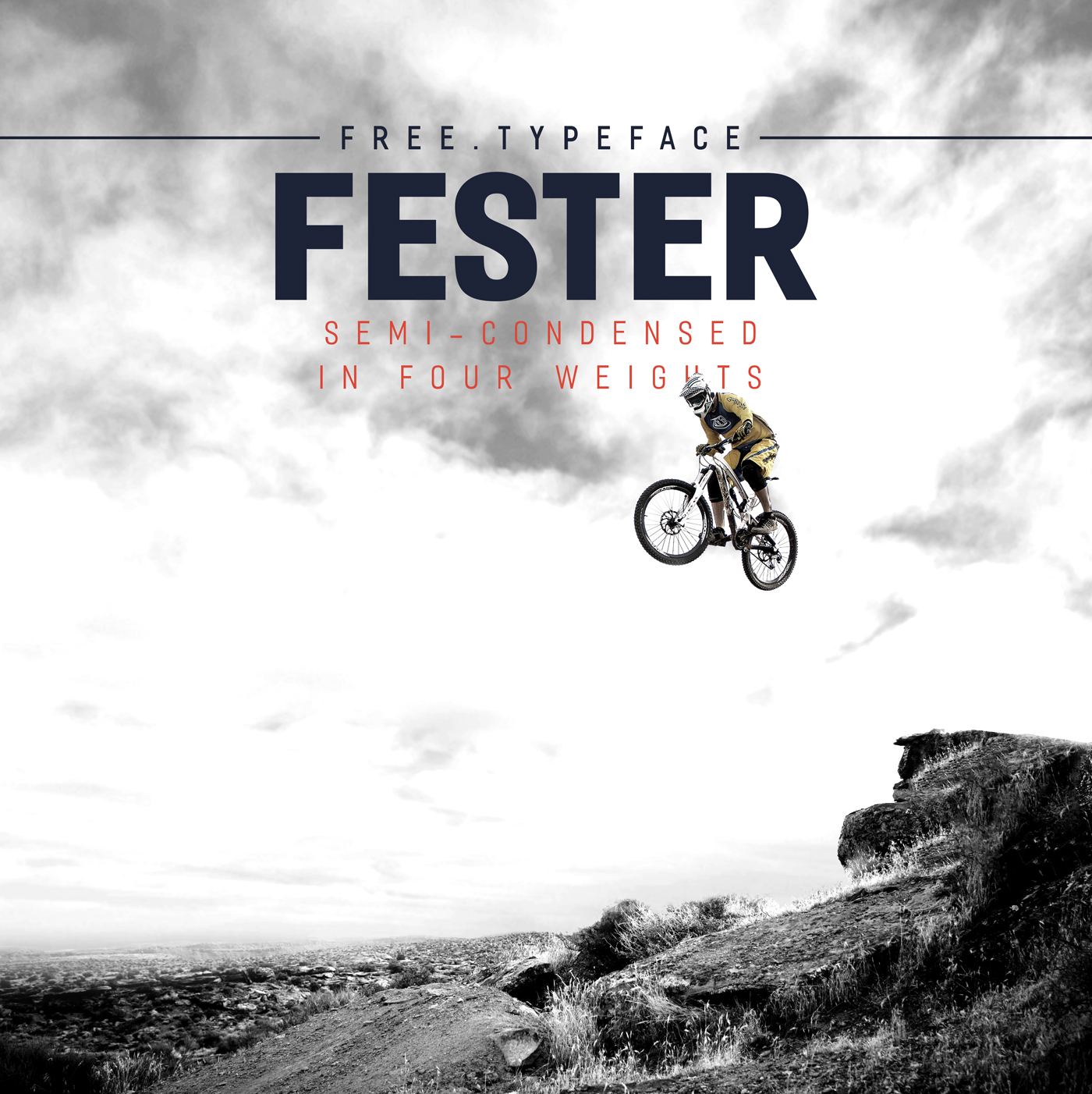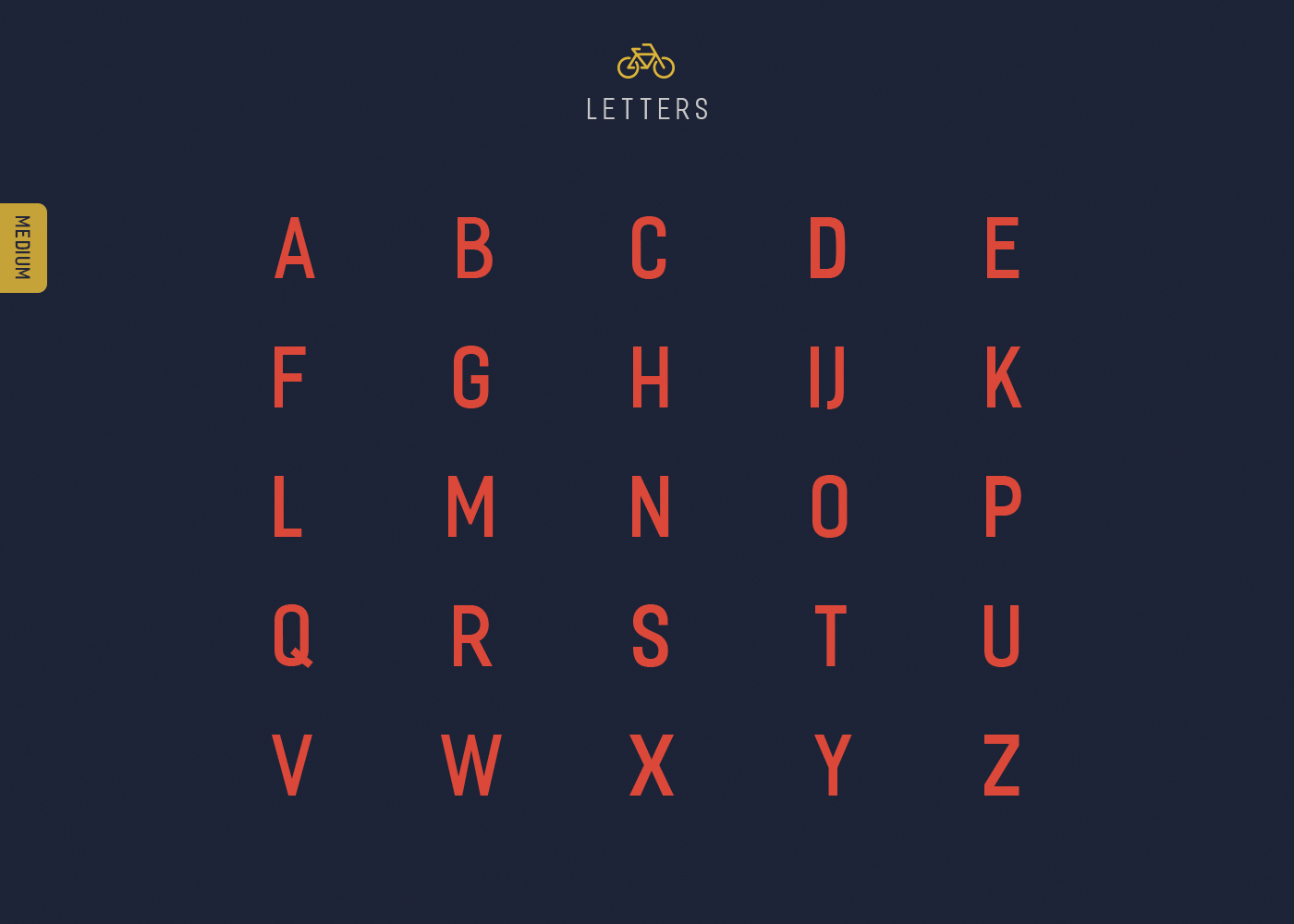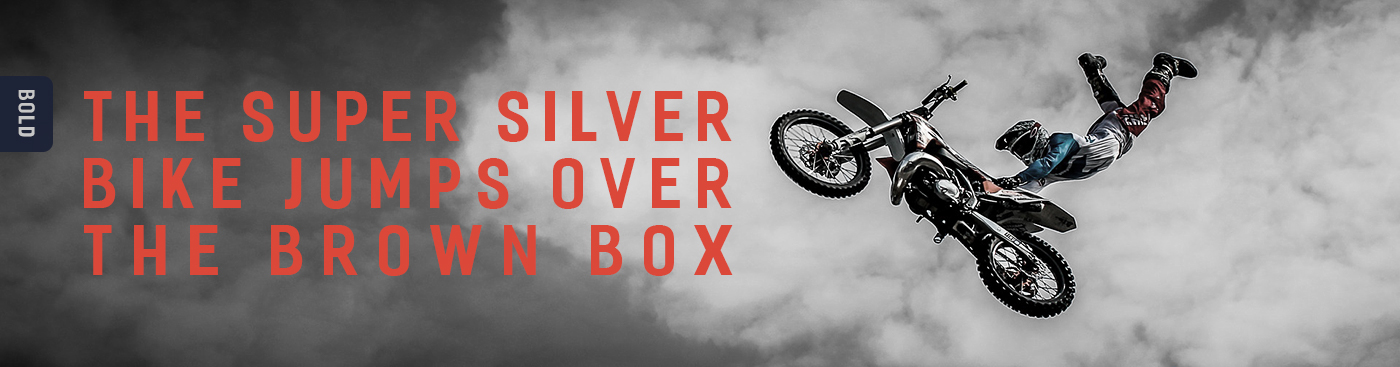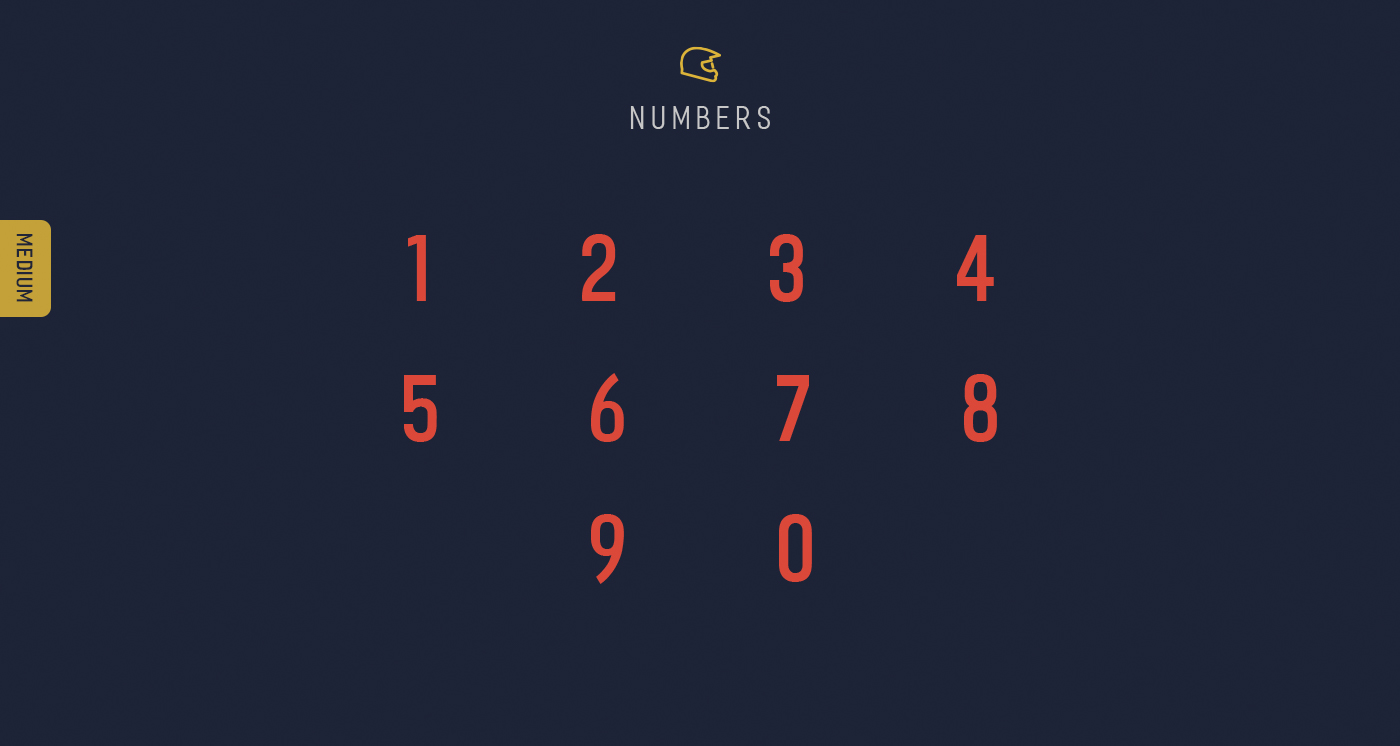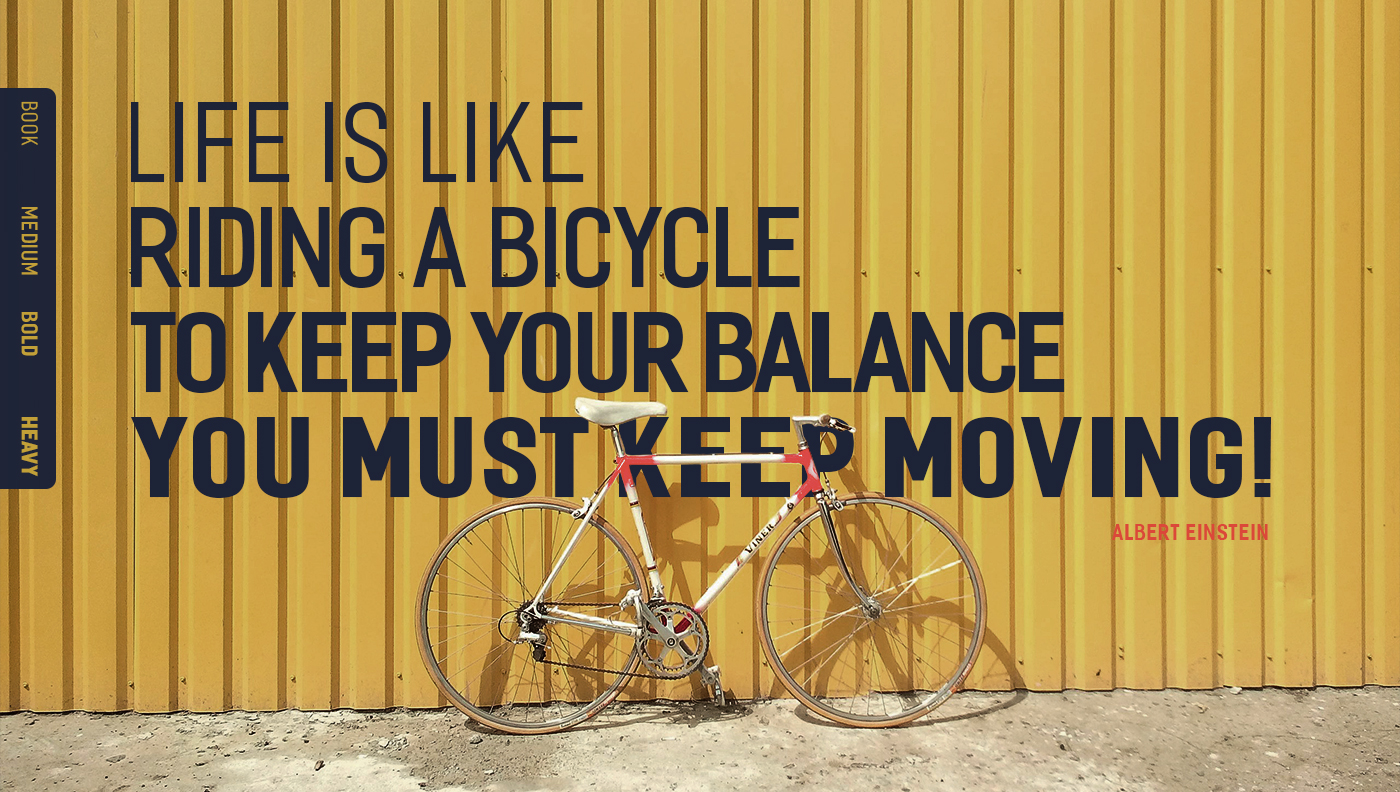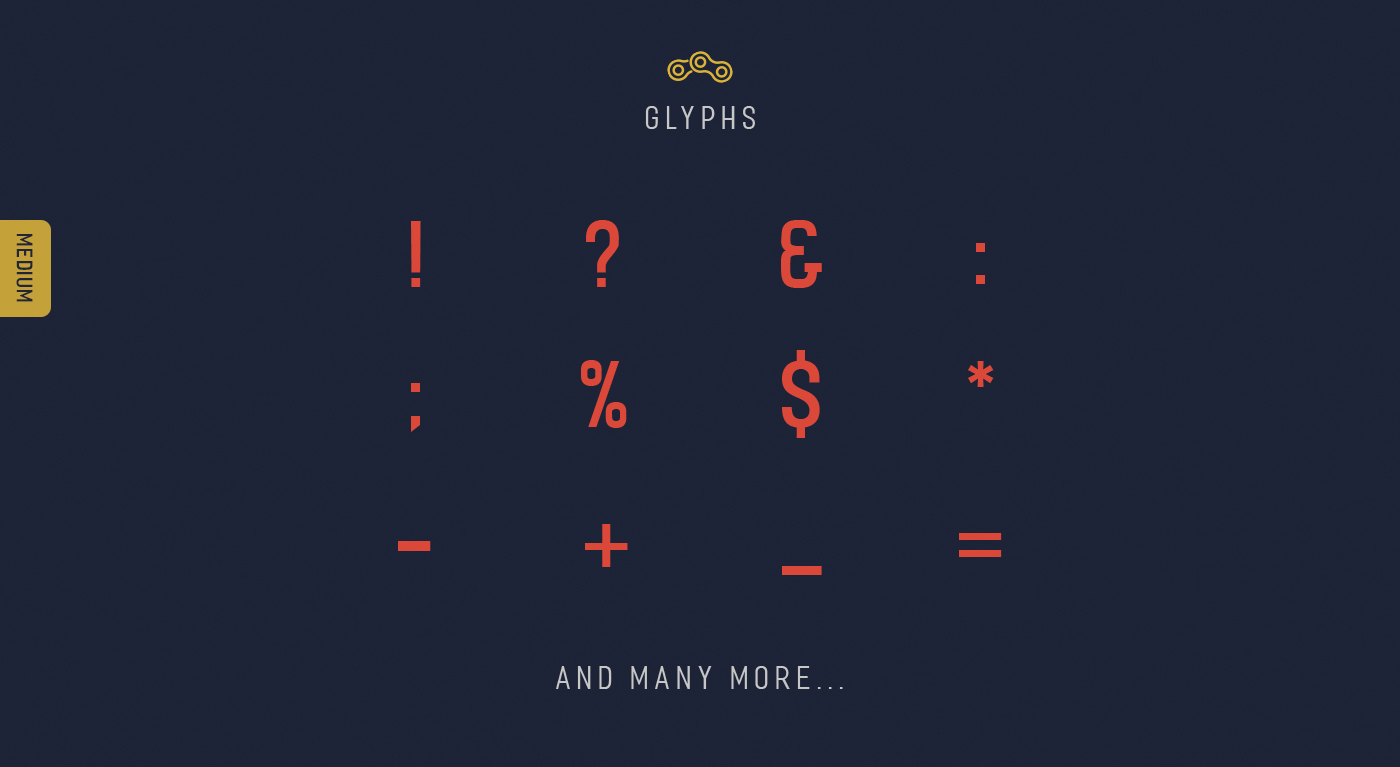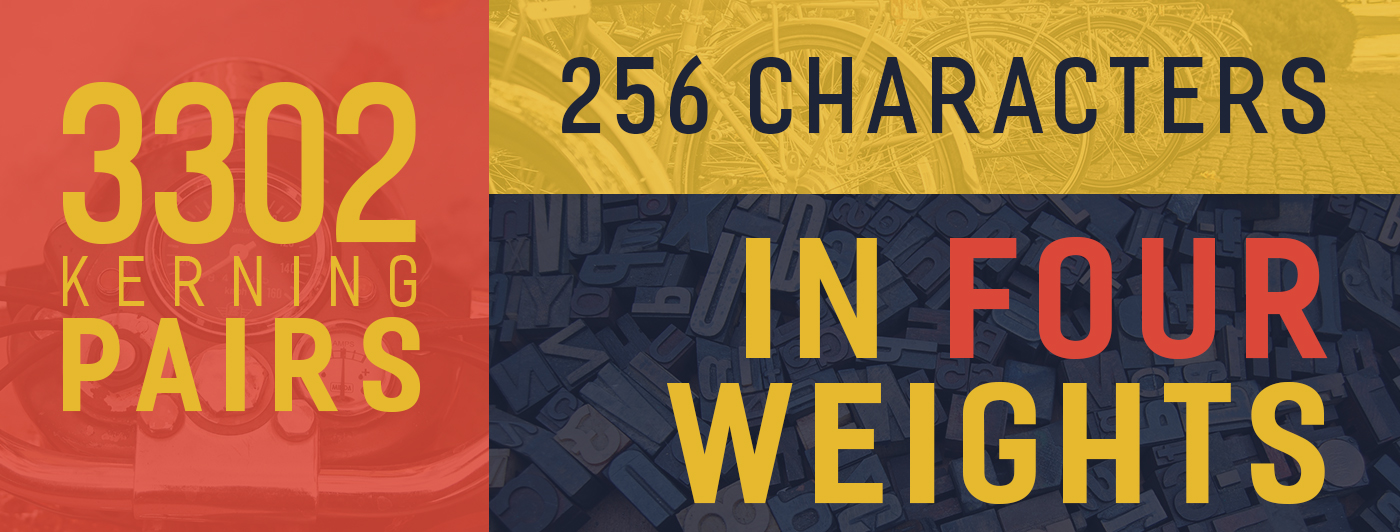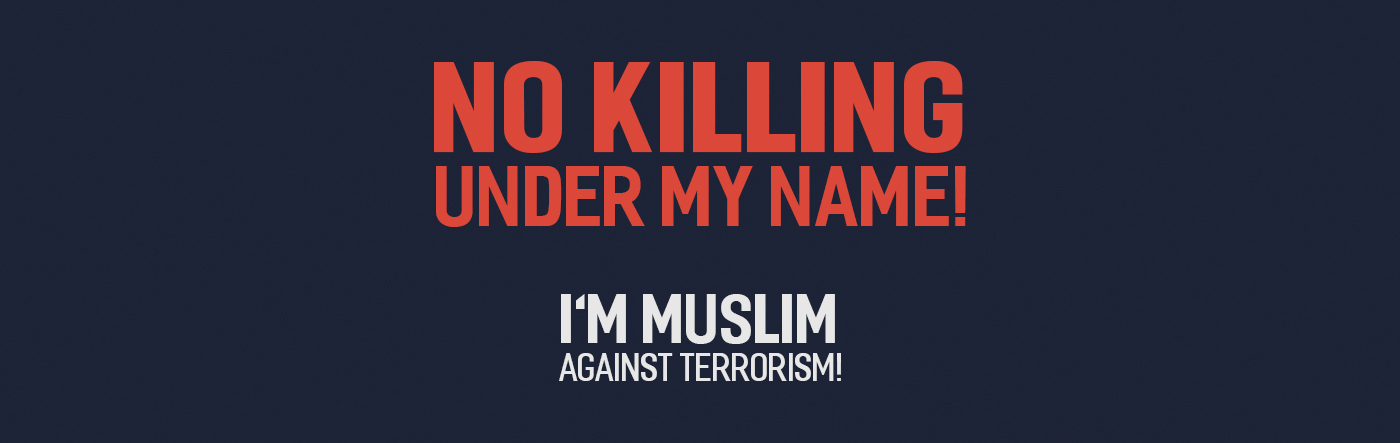
FESTER is an uppercase, semi-condensed, sans-serif typeface designed by Nawras Moneer, from Irbid, Jordan. Its gentle, clean appearance makes it a suitable typeface for headlines, posters, titles and captions. It consists of 256 character glyphs & over 3302 kerning pairs. Free for both personal and commercial use!